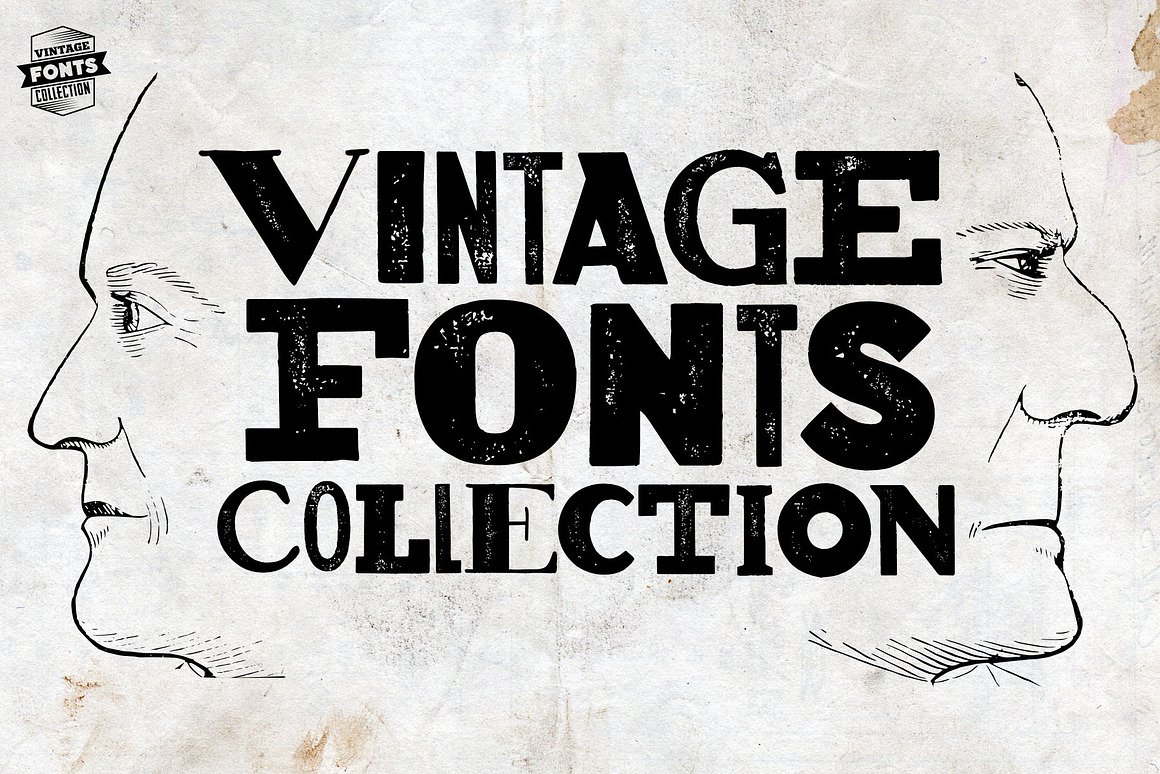
Vintage Fonts Collection - 18 Fonts
Vintage Fonts Collection - 18 Fonts is perfectly suited for retro brand identities, classic poster designs, antique shop signage, heritage company logos, nostalgic packaging designs, vintage wedding invitations, old-fashioned restaurant branding, historical publication layouts, and authentic period-style marketing materials.
What makes Vintage Fonts Collection - 18 Fonts so exciting is its comprehensive variety and authentic historical character that provides designers with an extensive toolkit for creating genuine vintage aesthetics across multiple design eras and stylistic periods. This exceptional collection captures the essence of different vintage typography traditions, from Art Deco elegance to Victorian ornate styling, offering unparalleled versatility for projects requiring authentic period character. The collection's diverse range of styles ensures perfect matches for any vintage-inspired project while maintaining consistent quality and historical accuracy throughout. Vintage Fonts Collection - 18 Fonts stands out through its ability to convey heritage, authenticity, and timeless craftsmanship, making it perfect for projects that need to establish historical credibility while creating nostalgic connections with audiences who appreciate classic design values and vintage aesthetics.
The Vintage Fonts Collection - 18 Fonts includes eighteen distinct vintage-inspired typefaces spanning multiple historical periods and design styles, each carefully crafted to represent authentic vintage typography traditions. This comprehensive collection features decorative display fonts, elegant script styles, bold poster fonts, and refined text faces that provide complete solutions for any vintage design project requiring historical authenticity.
When you choose Vintage Fonts Collection - 18 Fonts Free Download, you're selecting a comprehensive typeface library that brings authentic vintage character and historical depth to your creative projects. This collection excels in creating designs that need to convey heritage, craftsmanship, and nostalgic appeal. Its diverse vintage styles make it particularly effective for antique businesses, heritage brands, and creative projects that want to capture genuine historical authenticity across multiple vintage periods.
The technical excellence of Vintage Fonts Collection - 18 Fonts includes comprehensive character sets for all eighteen fonts with uppercase and lowercase letters, numerals, punctuation marks, and period-appropriate symbols that maintain historical authenticity. Each font has been carefully optimized for both digital and print applications, ensuring consistent performance while preserving the intricate details that give them their distinctive vintage character and authentic period appeal.
Whether you're designing heritage brand identities, creating vintage marketing materials, developing period-accurate publications, or crafting designs that celebrate historical typography and classic aesthetics, Vintage Fonts Collection - 18 Fonts delivers the perfect combination of historical authenticity and comprehensive variety that makes your projects genuinely nostalgic and visually compelling for audiences seeking authentic vintage character and timeless design quality.